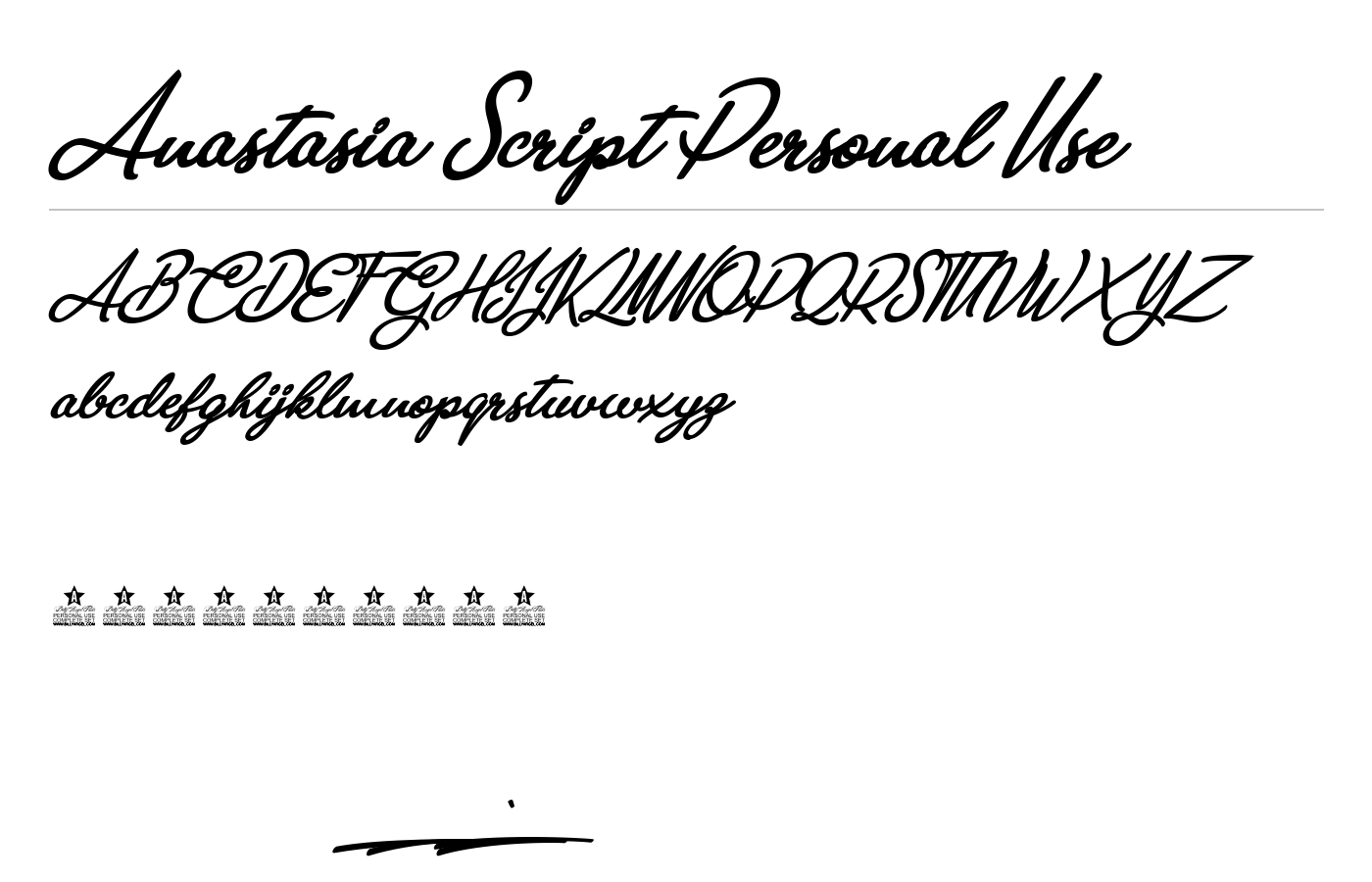
Anastasia Script is a refined and elegant handwritten script font characterized by fluid, connected strokes and a natural, cursive style. It features smooth curves with moderate contrast in weight, giving it a graceful and personal touch that works beautifully for invitations, branding, and decorative headlines. This font conveys a sophisticated yet approachable personality, perfect for creative projects aiming to add a touch of charm and warmth.
Anastasia Script Personal Use Font
About Anastasia Script Personal Use Font